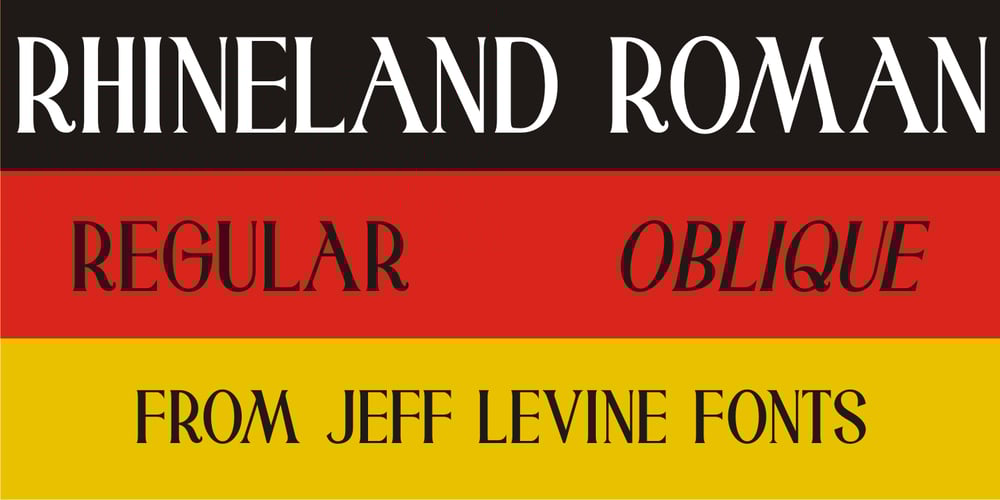
Rhineland Roman JNL Font Family was designed by Jeff Levine and published by Jeff Levine. Rhineland Roman JNL contains 2 styles and family package options. Rhineland Roman JNL was modeled from the hand lettered title of some 1939 German sheet music entitled “Ich Hab’Mir Fur Grinzing”, and is available in both regular and oblique versions.